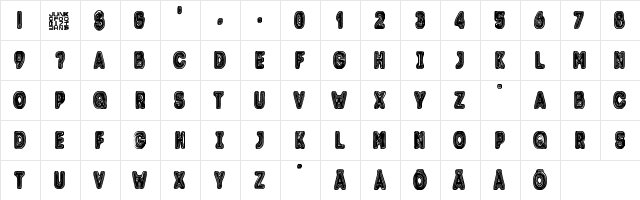
Trolle Regular
| Designer | junkohanhero |
Design Context for Trolle Typeface
Trolle is a composed and adaptable typeface that performs quietly and consistently across a wide range of design contexts.